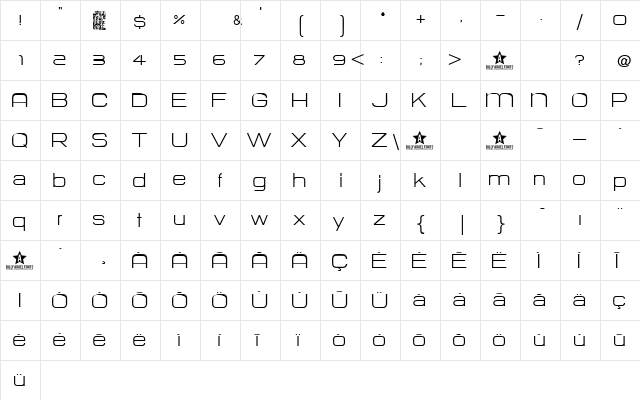
HURTMOLD_ Regular
Design Context for HURTMOLD_ Typeface
HURTMOLD_ offers clean, dependable letterforms without strong stylistic allegiance, making it a practical choice for designers who need flexibility.